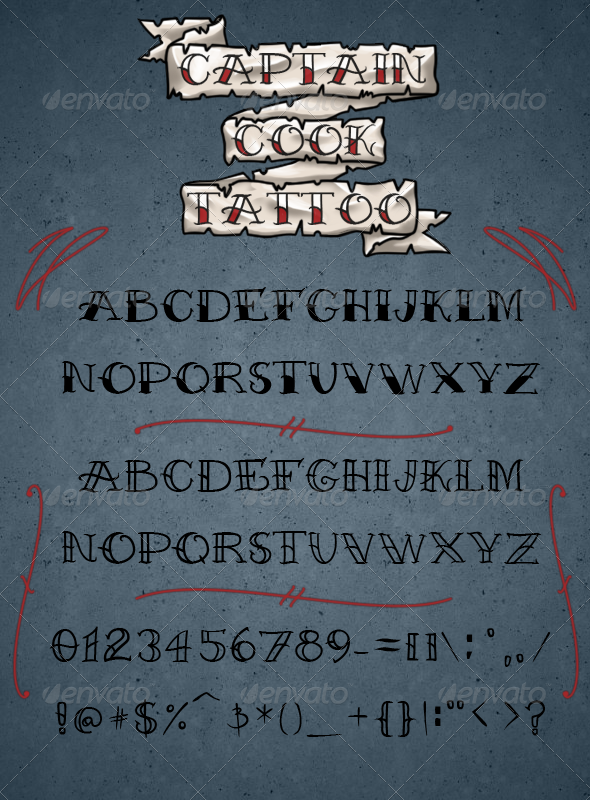
Captain Cook Tattoo Font
Captain Cook Tattoo Font - Miscellaneous Decorative
This font is named after Captain James Cook who encountered Tattooed people in the south pacific in 1769. It is a basic decorative Font. The Upper case is an outline and the lowercase is semi-filled, comes with all numbers and basic symbols. This font is best used in 36pt or higher and is ideal for use in personal designs, branding and promotional artwork.